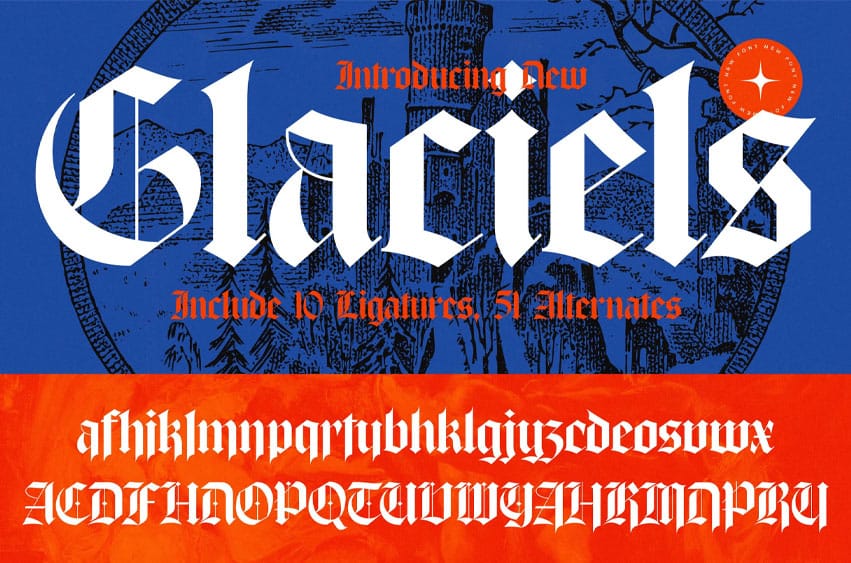
Glaciels Font is a bold blackletter display font with dramatic strokes and sharp edges, inspired by gothic traditions with a modern twist. Featuring stylish alternates and unique ligatures, this font is perfect, posters, covers, branding, and editorial titles.
Its strong medieval aesthetic, combined with contemporary design details, makes Glaciels a versatile and powerful typeface for both digital and print projects.